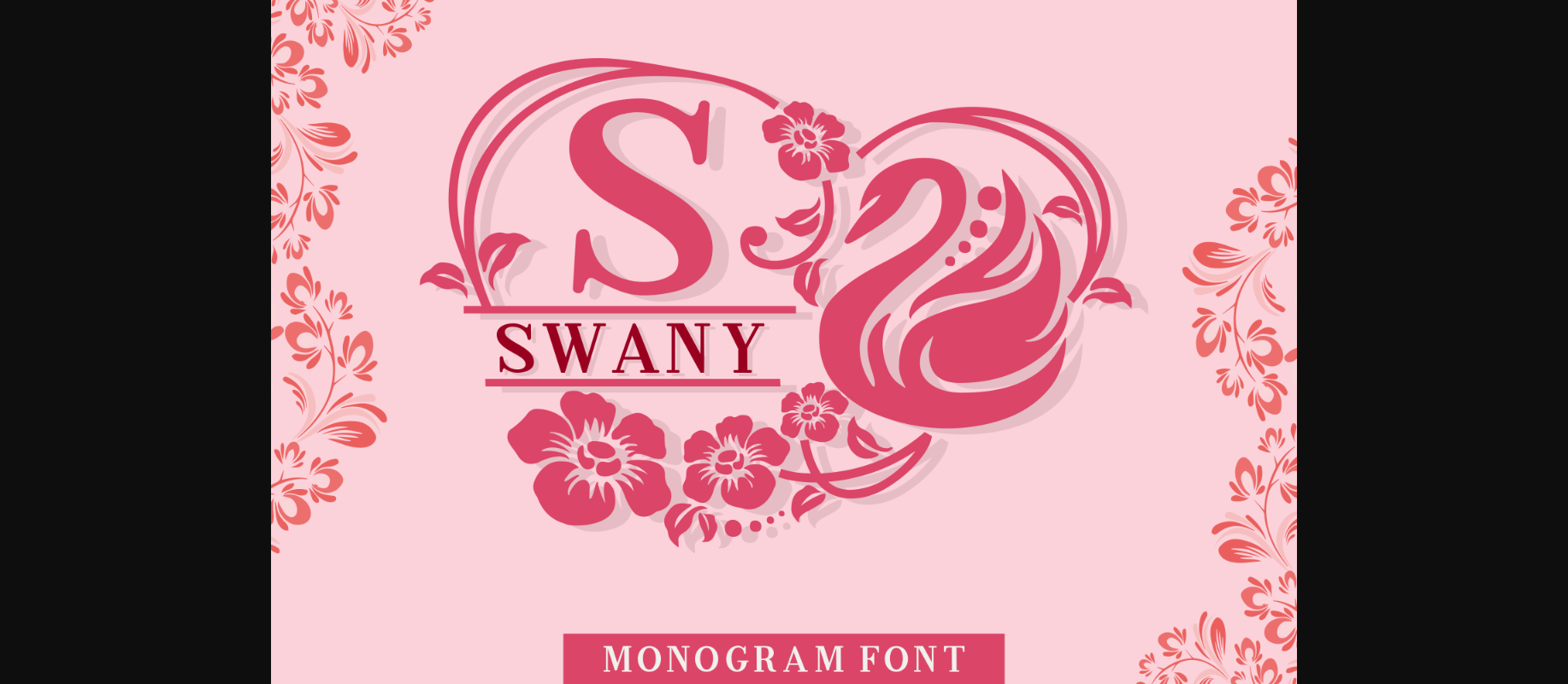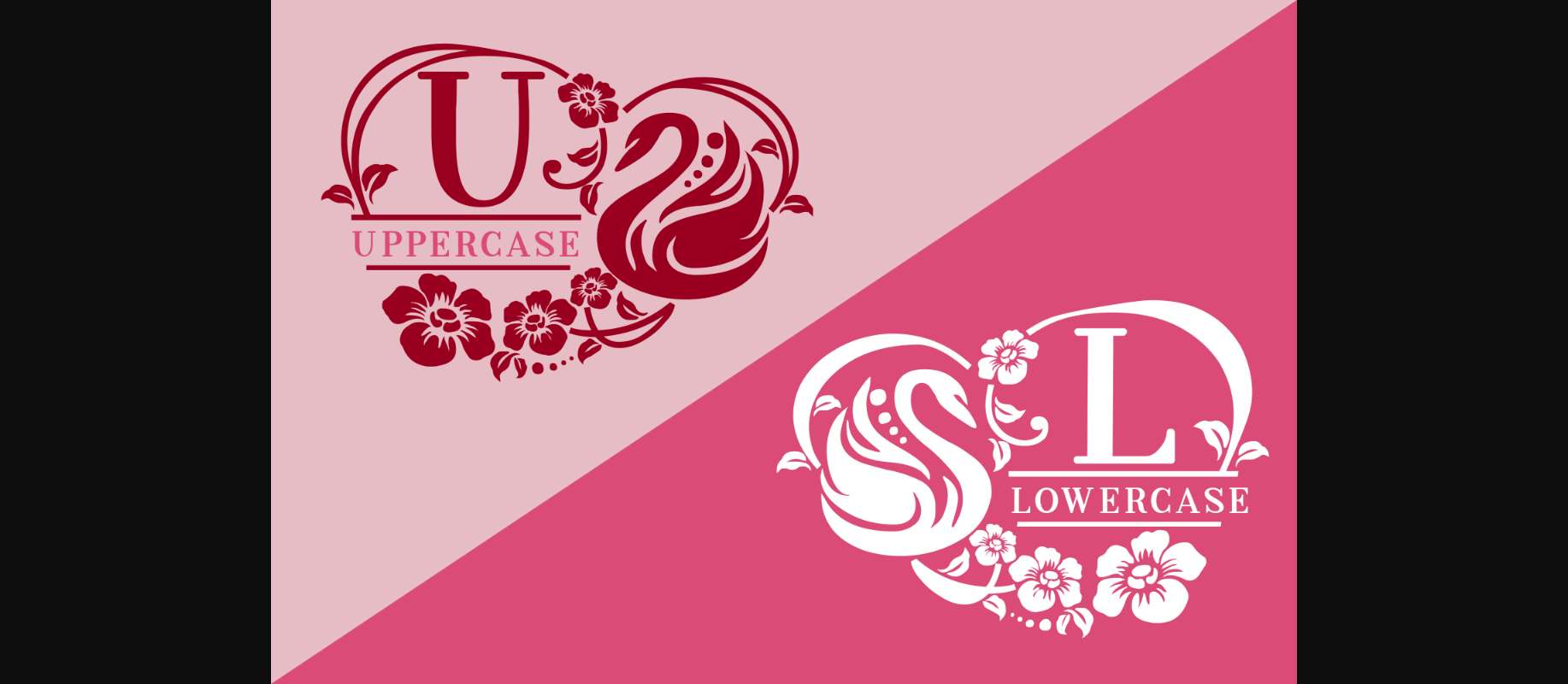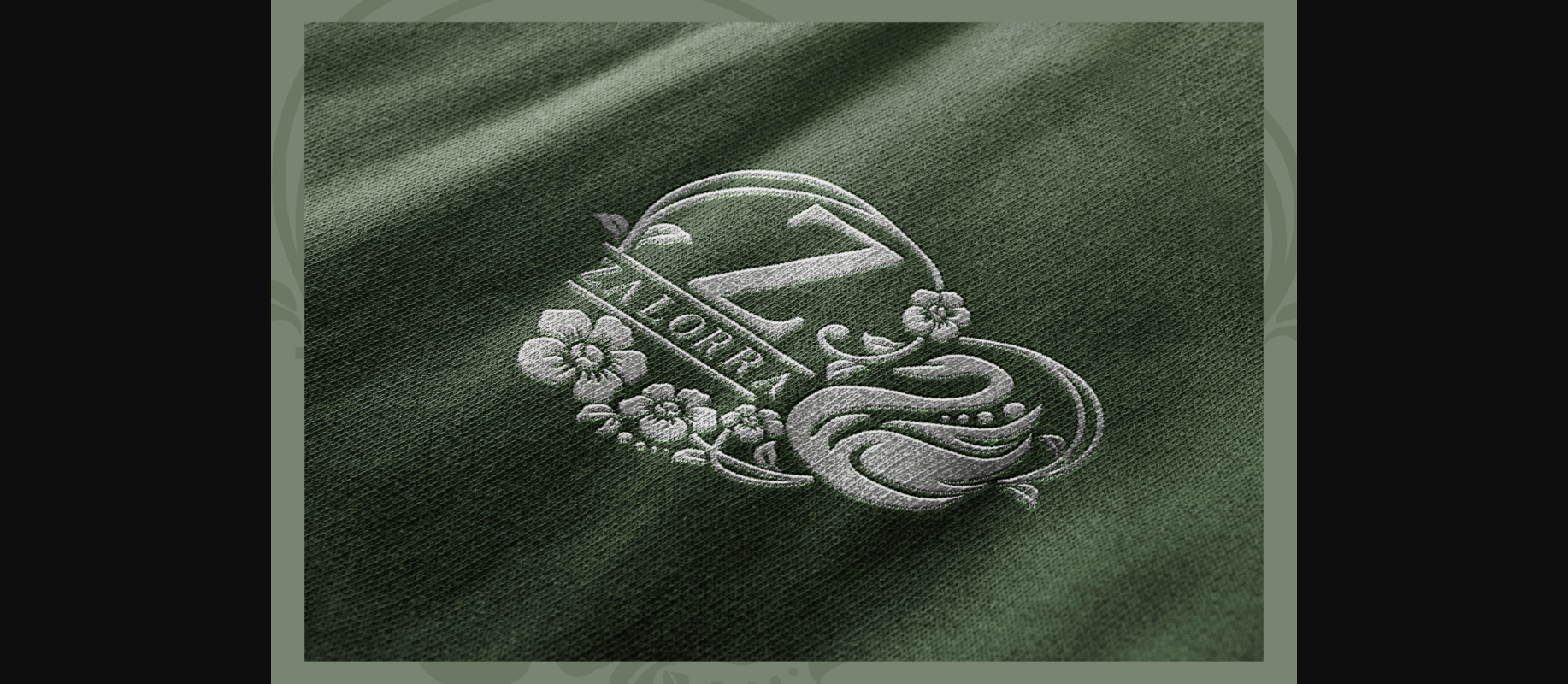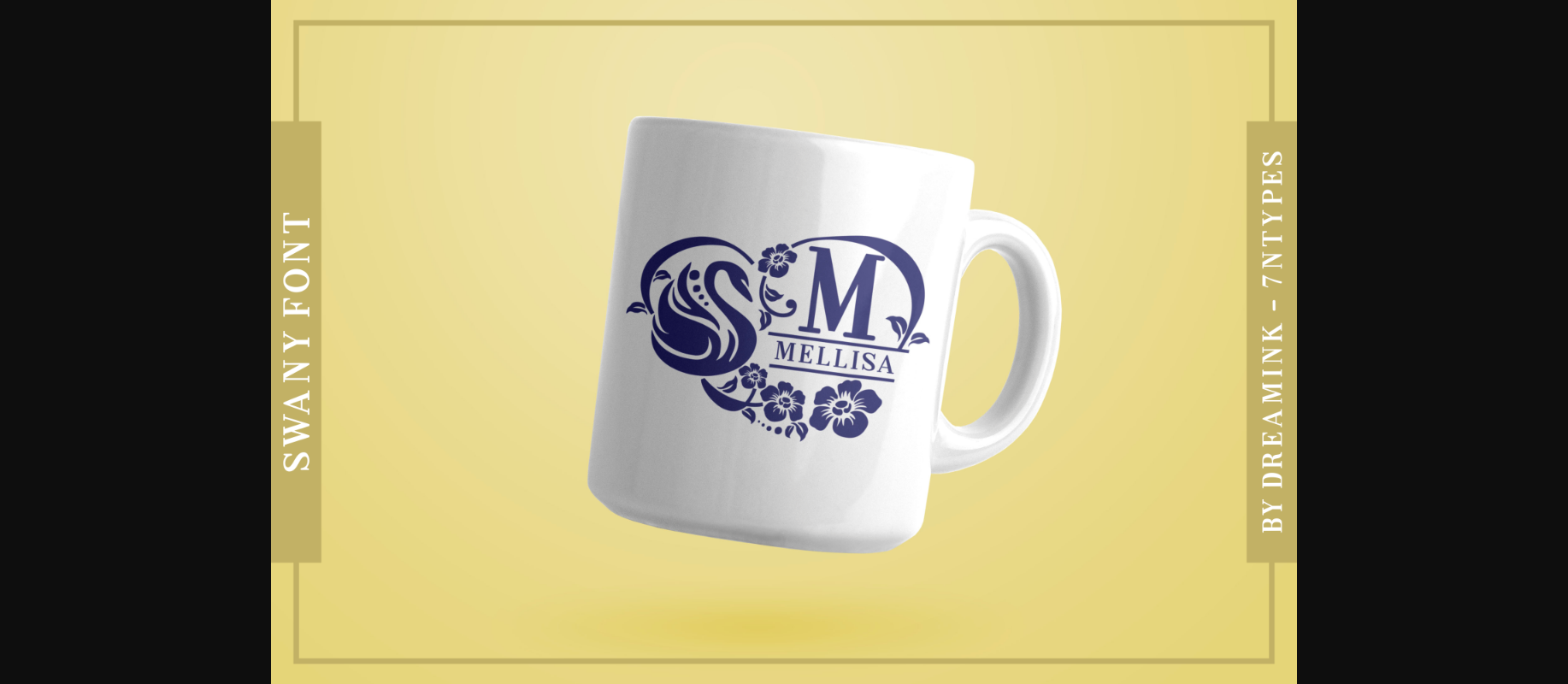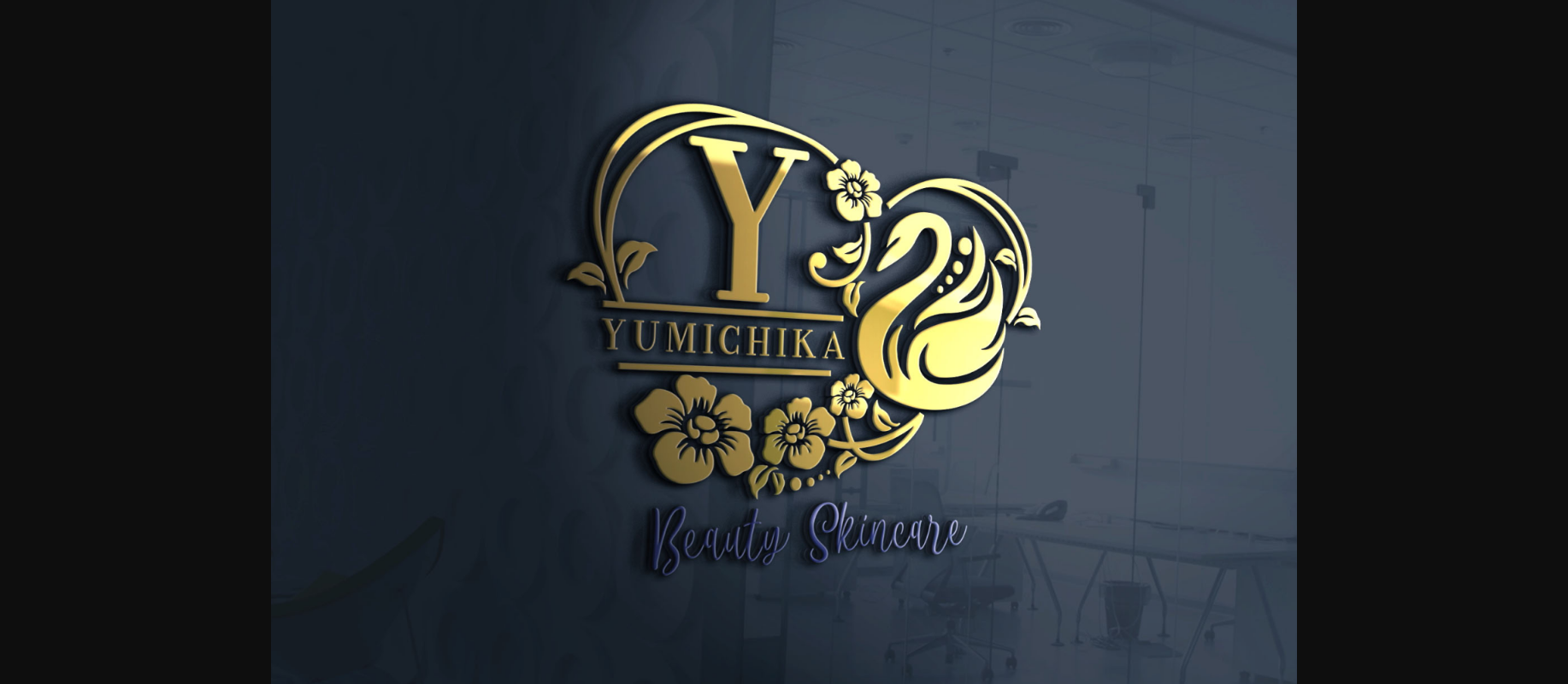
HomeDecorative FontsSwany Font Decorative Fonts Swany Font FacebookXPinterestWhatsApp 1 of 7 ... Swany Font Poster 2... Swany Font Poster 3... Swany Font Poster 4... Swany Font Poster 5... Swany Font Poster 6... Swany Font Poster 7... About Swany Font Swany is a dainty and unique decorative font. Add this romantic and lovely looking font to each of your love letters, wedding invitations or favorite design ideas, and you will be astounded by the outcome. DOWNLOAD NOW People also explored Fresh Honey Font Sallad Font Natassya Font Floral Knight Font Stroper Font Rhepeat Hunter Font Big Surf Font Bosse Font Romantic February 322 0 TagsSwanySwany Font Previous articleMerry Floral FontNext articleTerrifying Word Font LEAVE A REPLY Cancel reply Comment: Please enter your comment! Name:* Please enter your name here Email:* You have entered an incorrect email address! Please enter your email address here Website: Save my name, email, and website in this browser for the next time I comment. Personal Use Free Grillin Personal Use Free Read more about this font Rocketto Personal Use Free Read more about this font Aelten Personal Use Free Read more about this font Bahjera Personal Use Free Read more about this font BLOG Using Fonts in Digital Marketing: Tips to Strengthen Your Brand Identity In the realm of digital marketing, every visual element plays a crucial role in shaping a brand's identity, and fonts are no exception. The... Elegant Wedding Invitation Fonts – Handwritten & Script Fonts Free Fonts Risk: Why Free Fonts Can Be Dangerous for Designers Where to Buy American Fonts Online in 2024